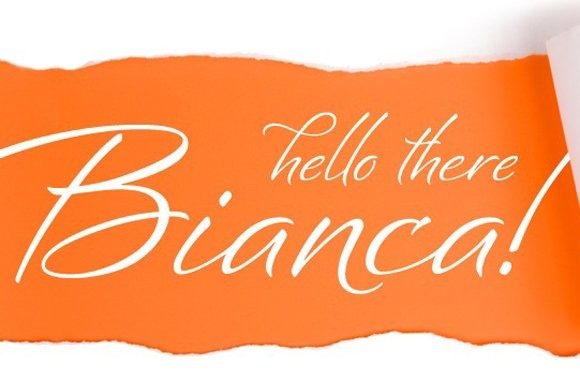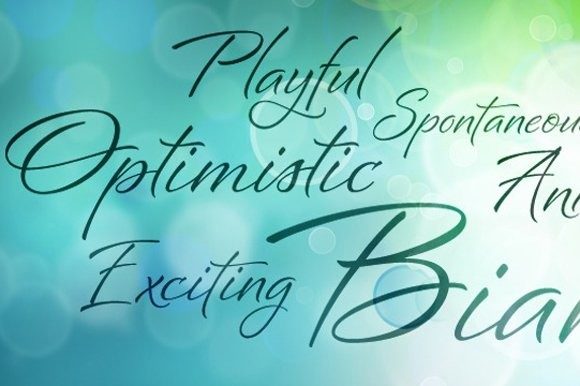
Bianca Font
About Bianca Font
Some characters make everything look easy. Bianca is a semi-connected script font whose slim strokes, gently curving verticals, and big, beautiful capitals convey the fashionable, feminine style. Customize the look of all your creative ideas! This font is PUA encoded which means you can access all of the glyphs and swashes with ease!